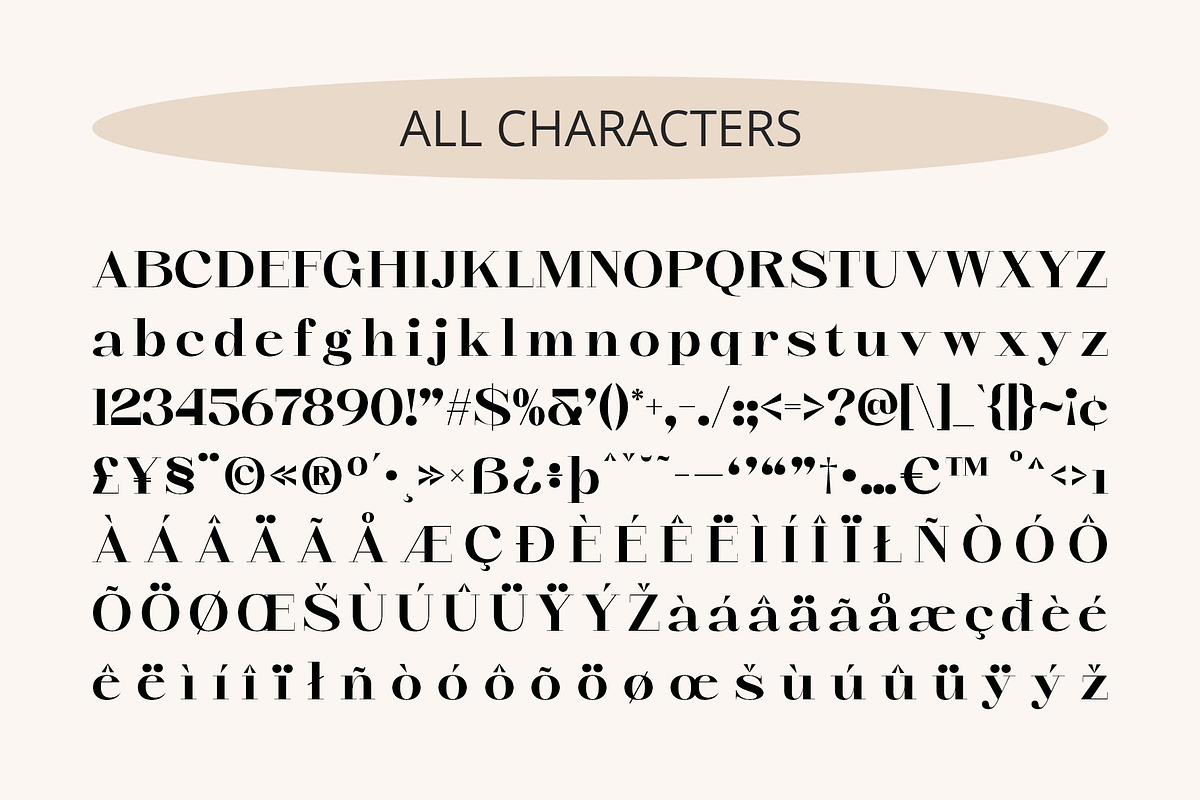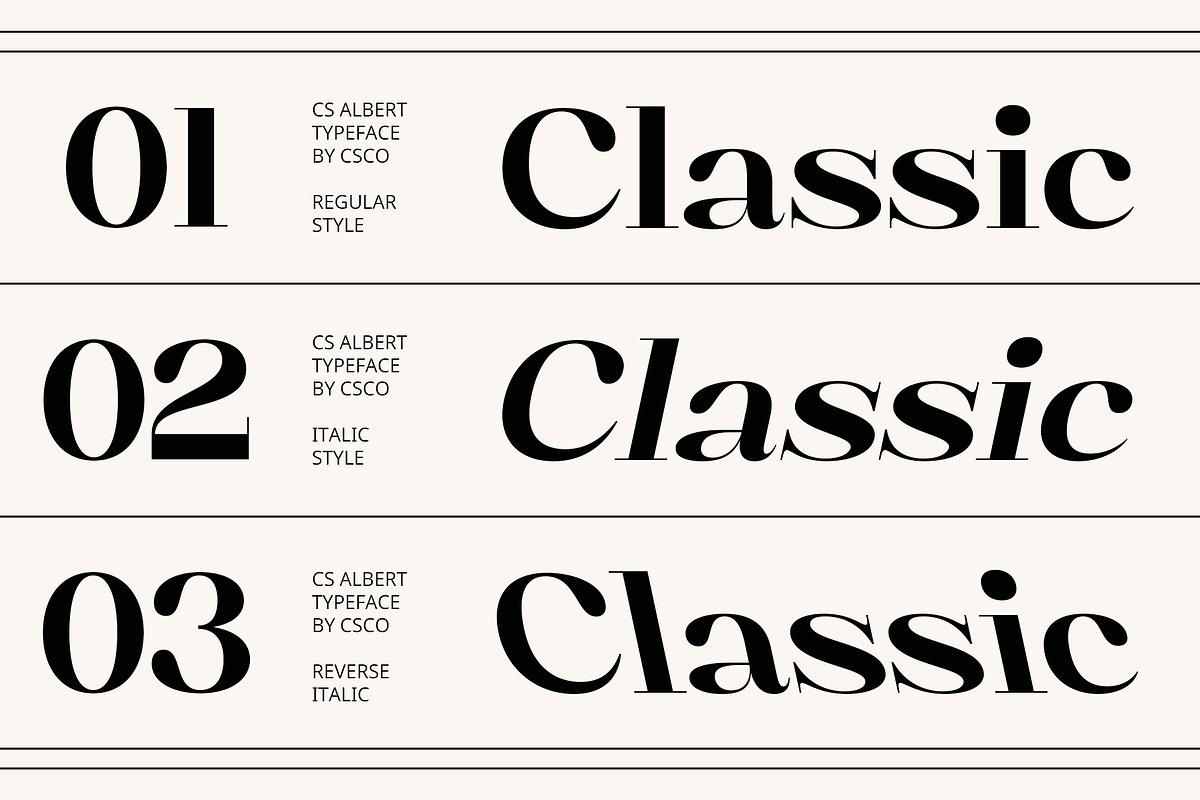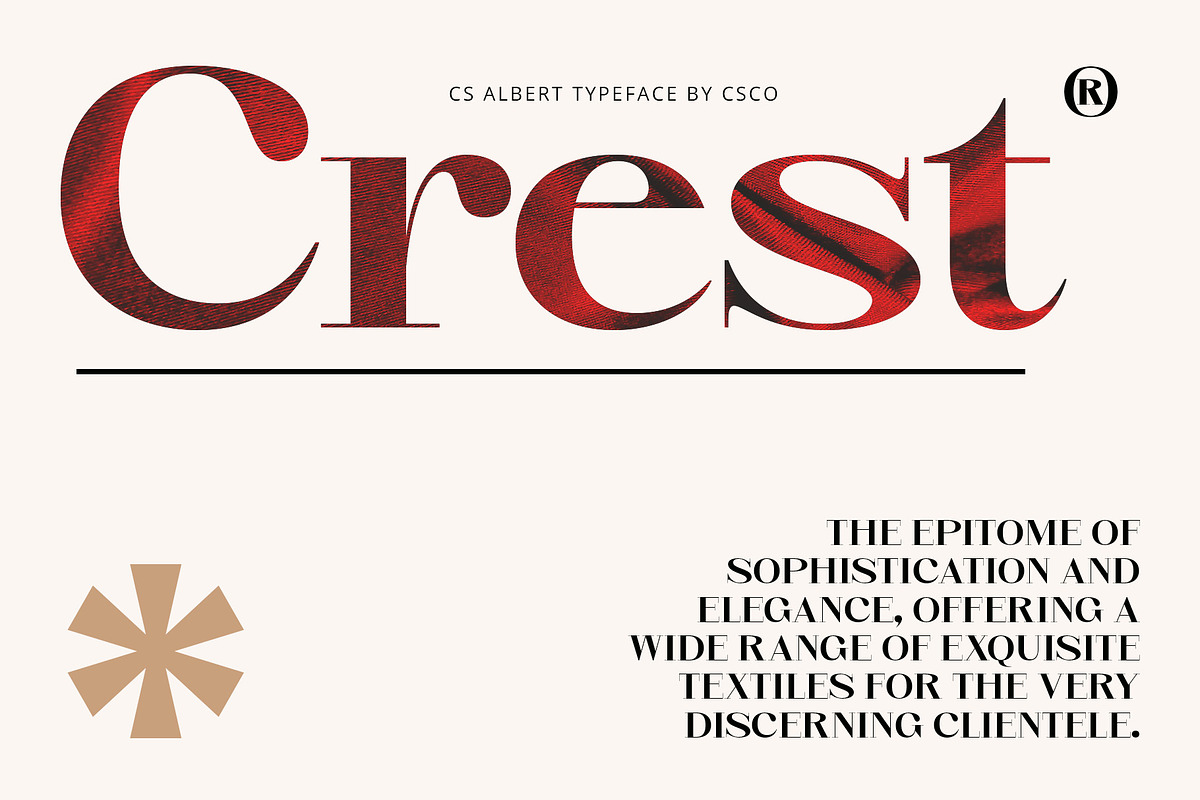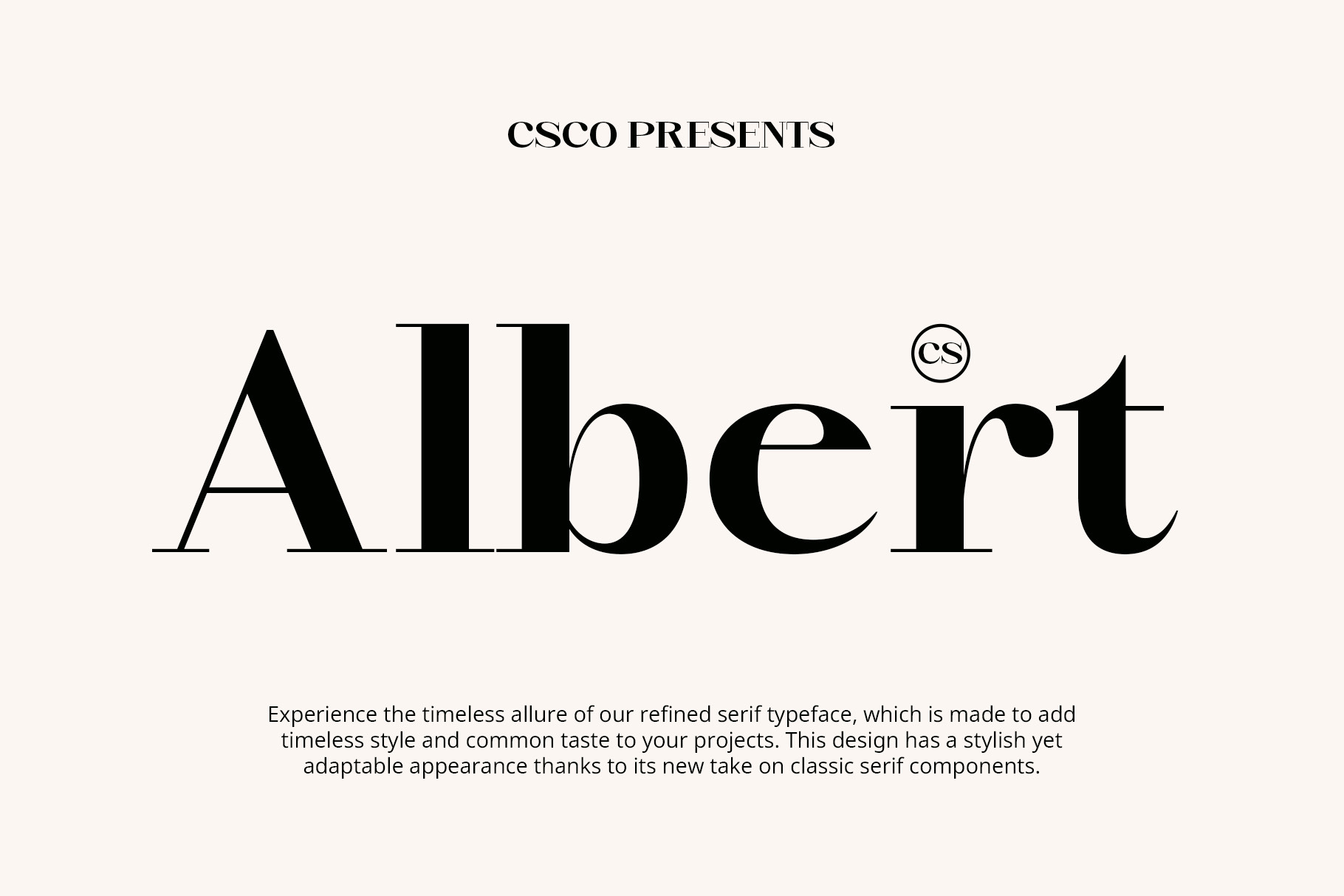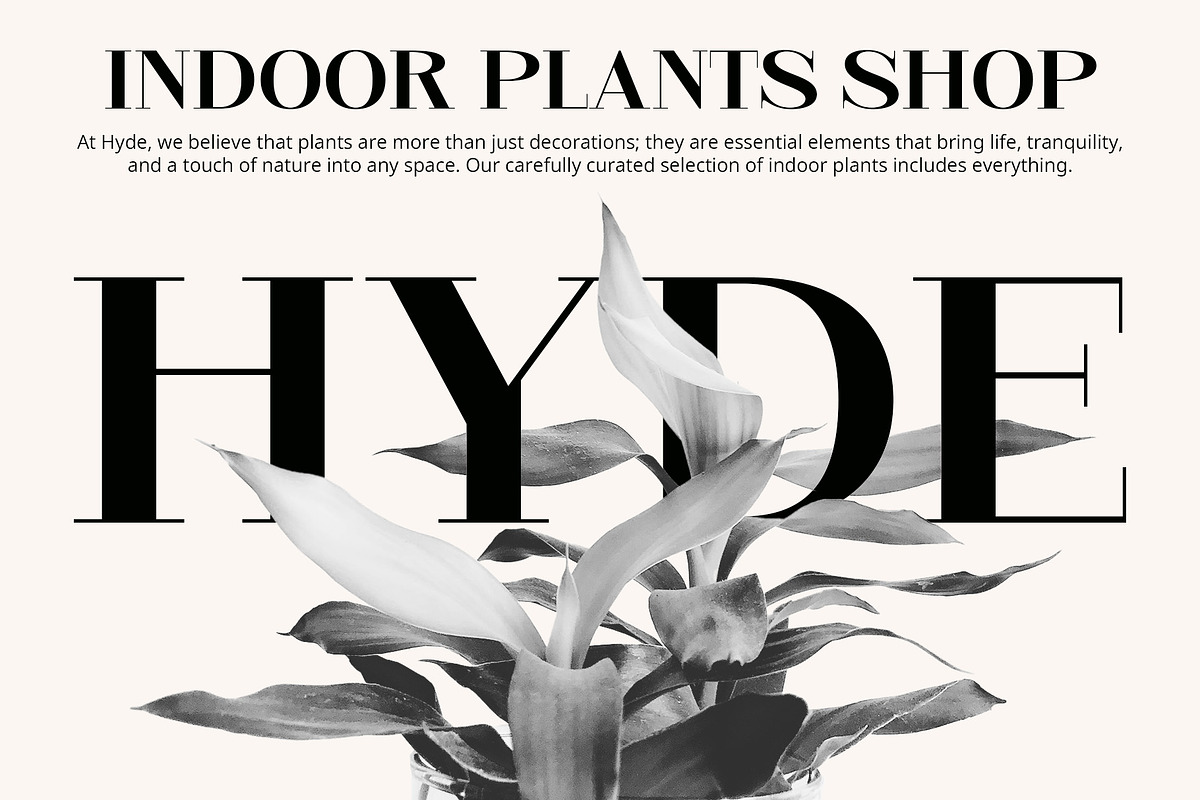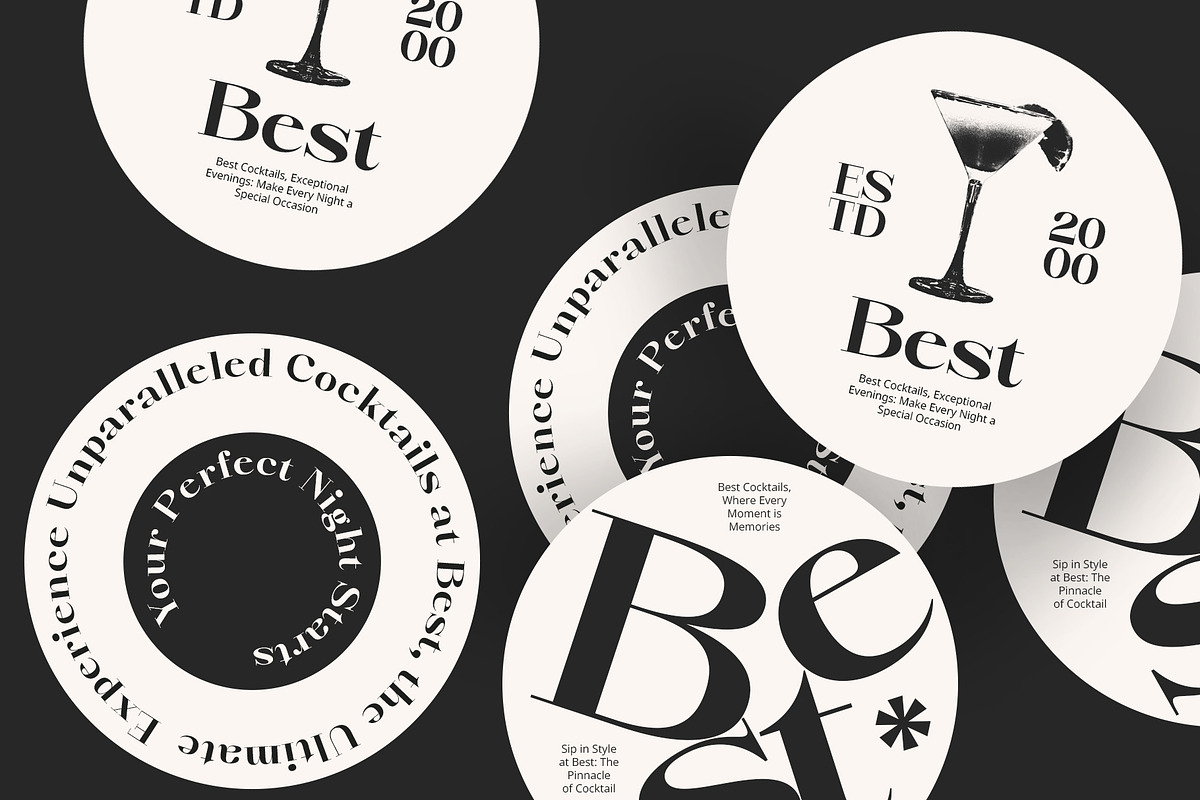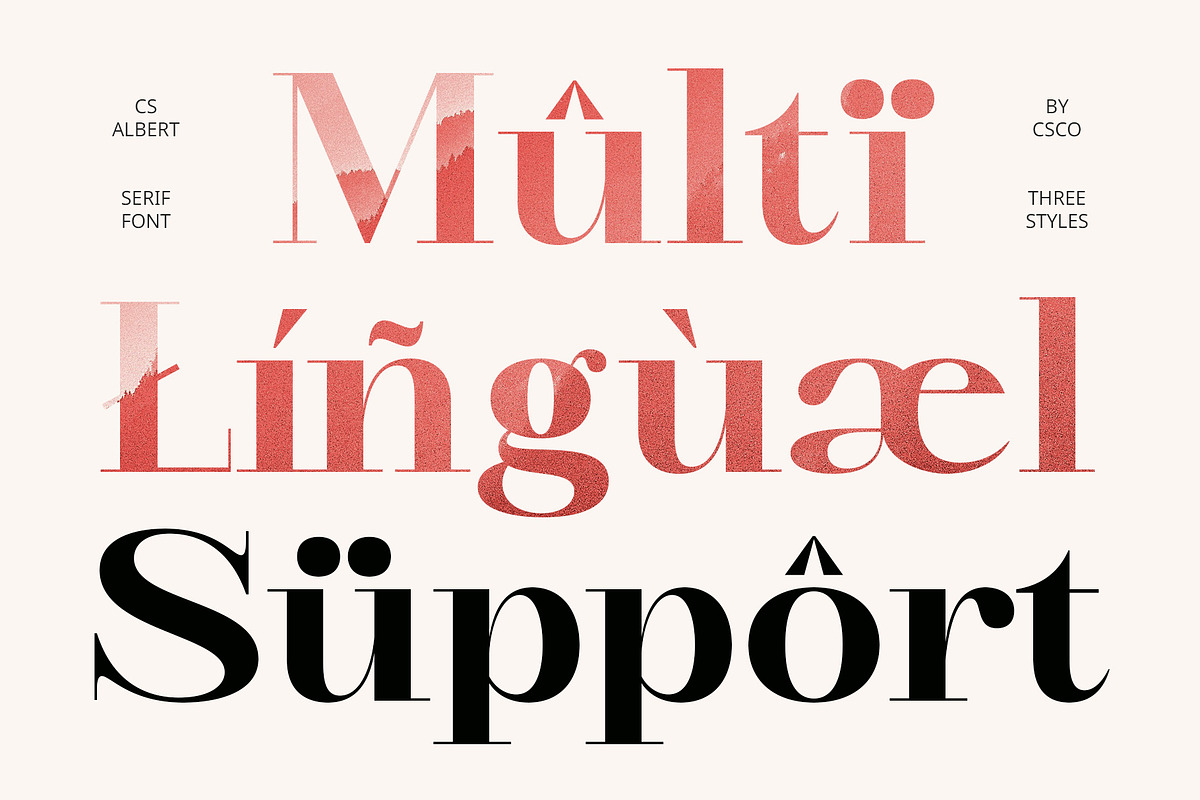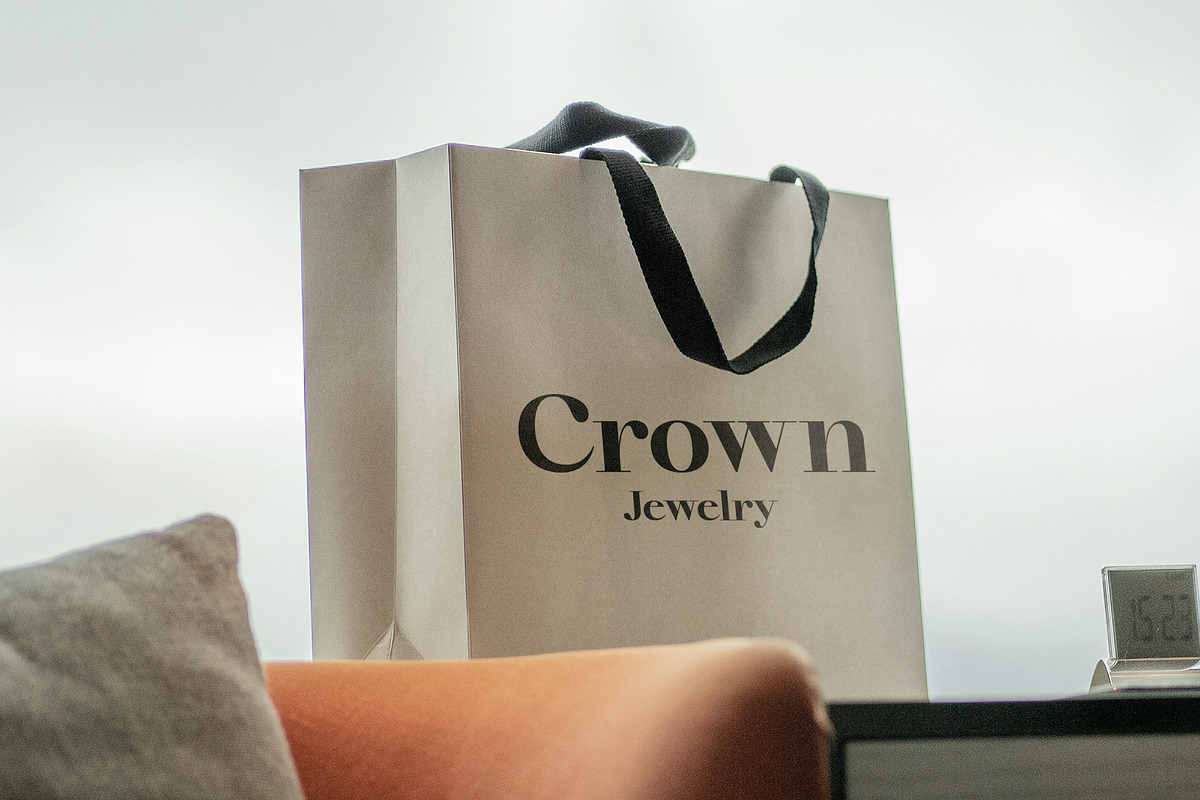
CS Albert – Classic Font
CS Albert – Classic Font: Timeless Elegance with Didone Sophistication
Serif Font with Didone Style CS Albert – Classic Font is a refined serif typeface that embodies the essence of Didone style, characterized by its high contrast between thick and thin strokes. This design choice imparts a distinctively elegant and classic appearance, making it an excellent choice for high-end and formal applications.
High Contrast for Elegance The high contrast between the thick and thin strokes of CS Albert enhances its sophisticated aesthetic. This feature creates a striking visual impact that emphasizes the font’s luxurious and refined nature, perfect for applications where elegance is paramount.
Slim Serifs and Clean Vertical Design With its slim serifs and clean vertical lines, CS Albert – Classic Font exudes a sense of grace and precision. The streamlined design contributes to a look of timeless sophistication, ideal for formal invitations, premium branding, and other high-end materials.
Versatile for Formal and Luxury Applications Ideal for creating high-impact, luxurious designs, CS Albert – Classic Font is well-suited for formal applications such as upscale invitations and exclusive branding projects. Its Didone style offers a classic touch that radiates sophistication and beauty, ensuring your designs stand out with a touch of timeless elegance.
- CS Albert Regular
- CS Albert Italic
- CS Albert Reverse Italic